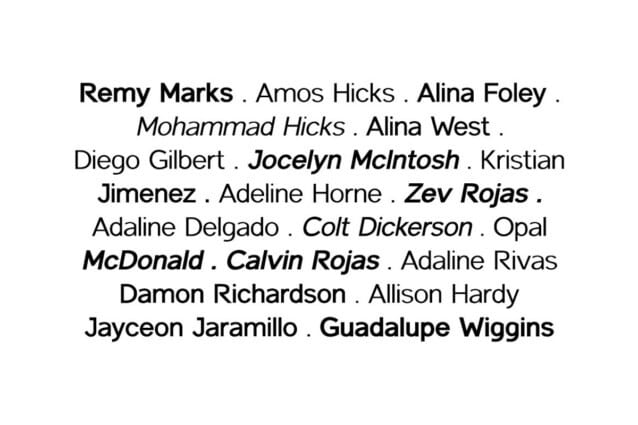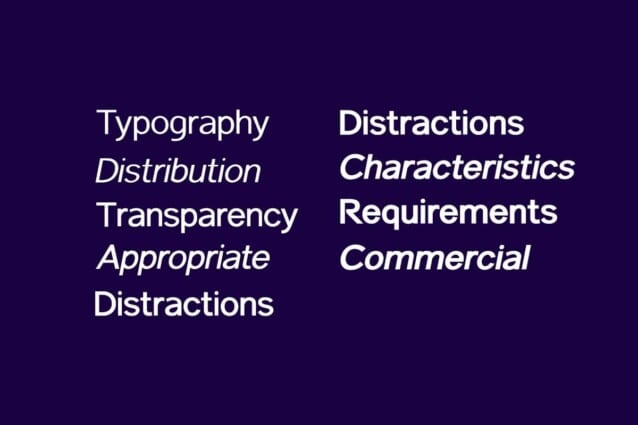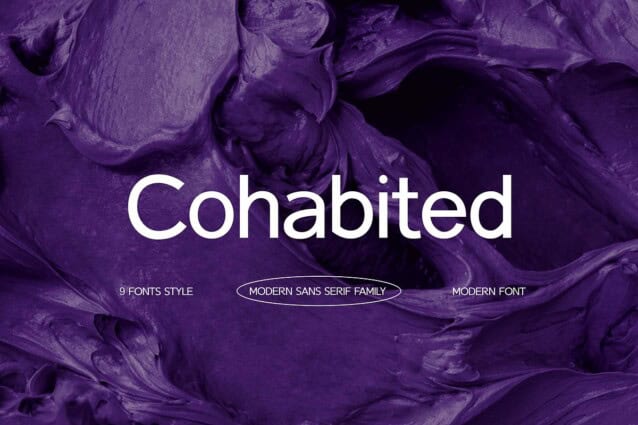
Cohabited Font Family
Cohabited Font Family is a sophisticated serif font designed to elevate your creative projects. This font is ideally suited for a wide variety of projects, such as signature, stationery, logo, wedding, typography quotes, magazine or book covers, website headers, branding, and more. Also, fashion-related branding or editorial design displays both masculine and feminine qualities.